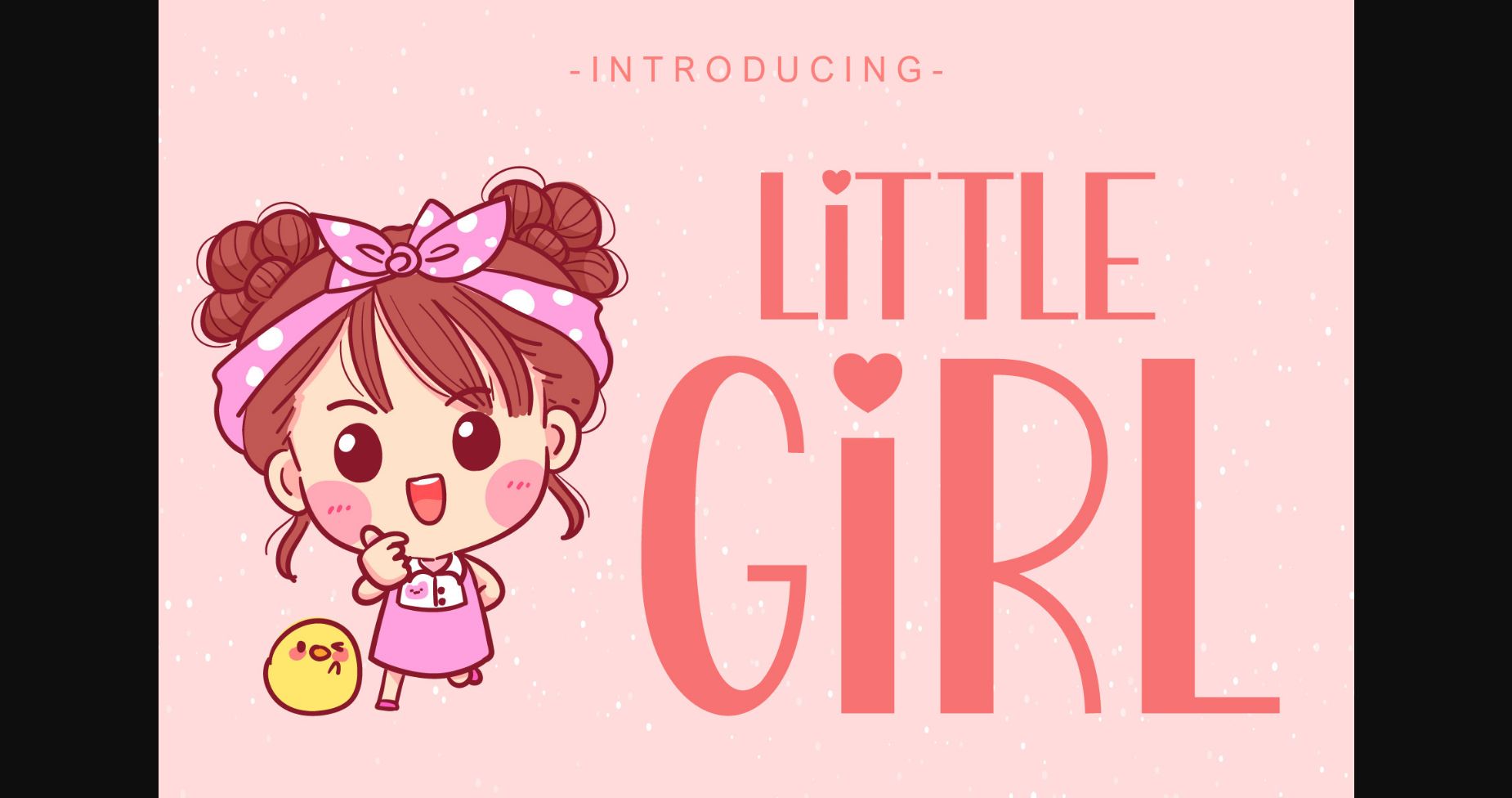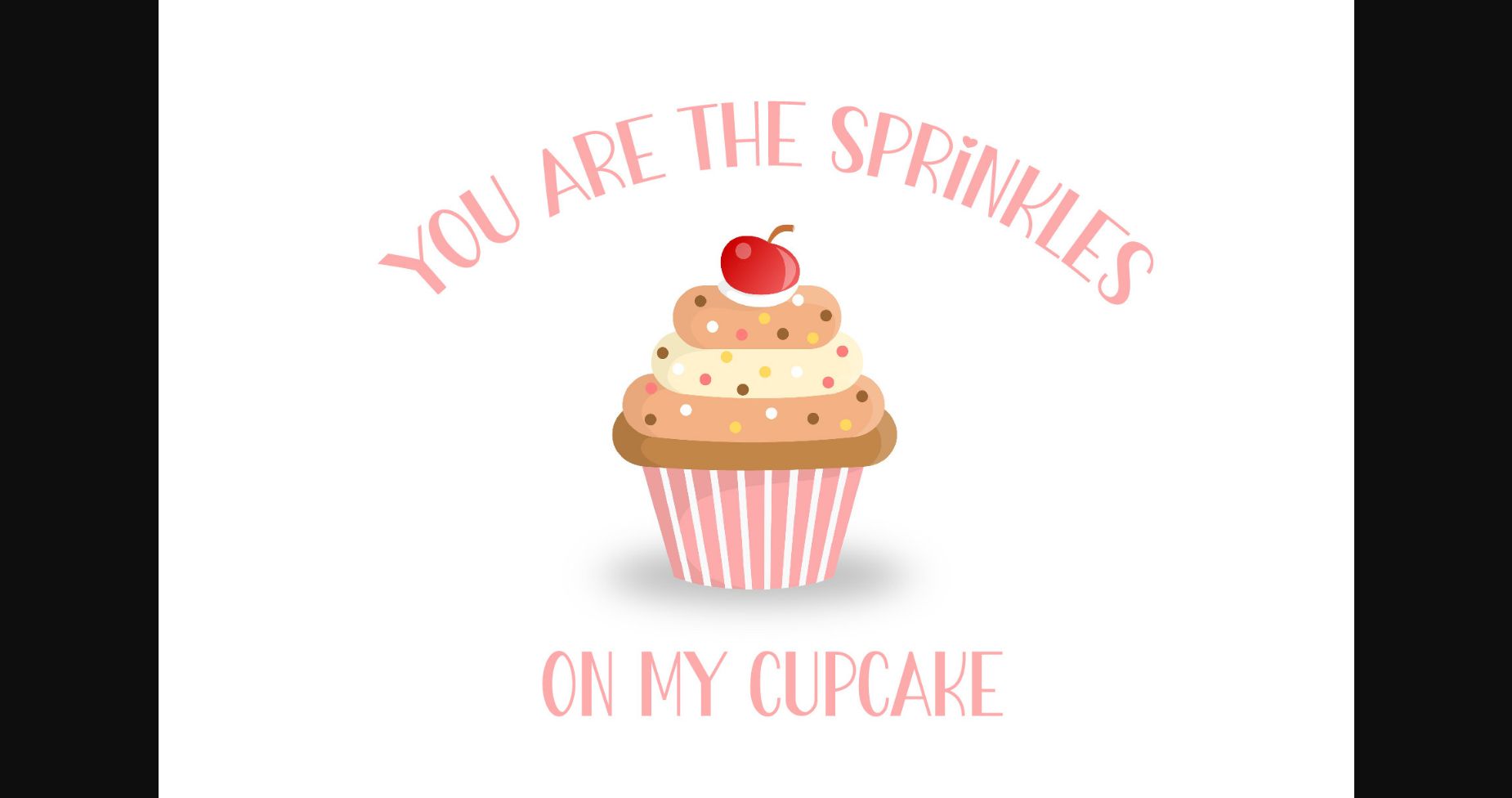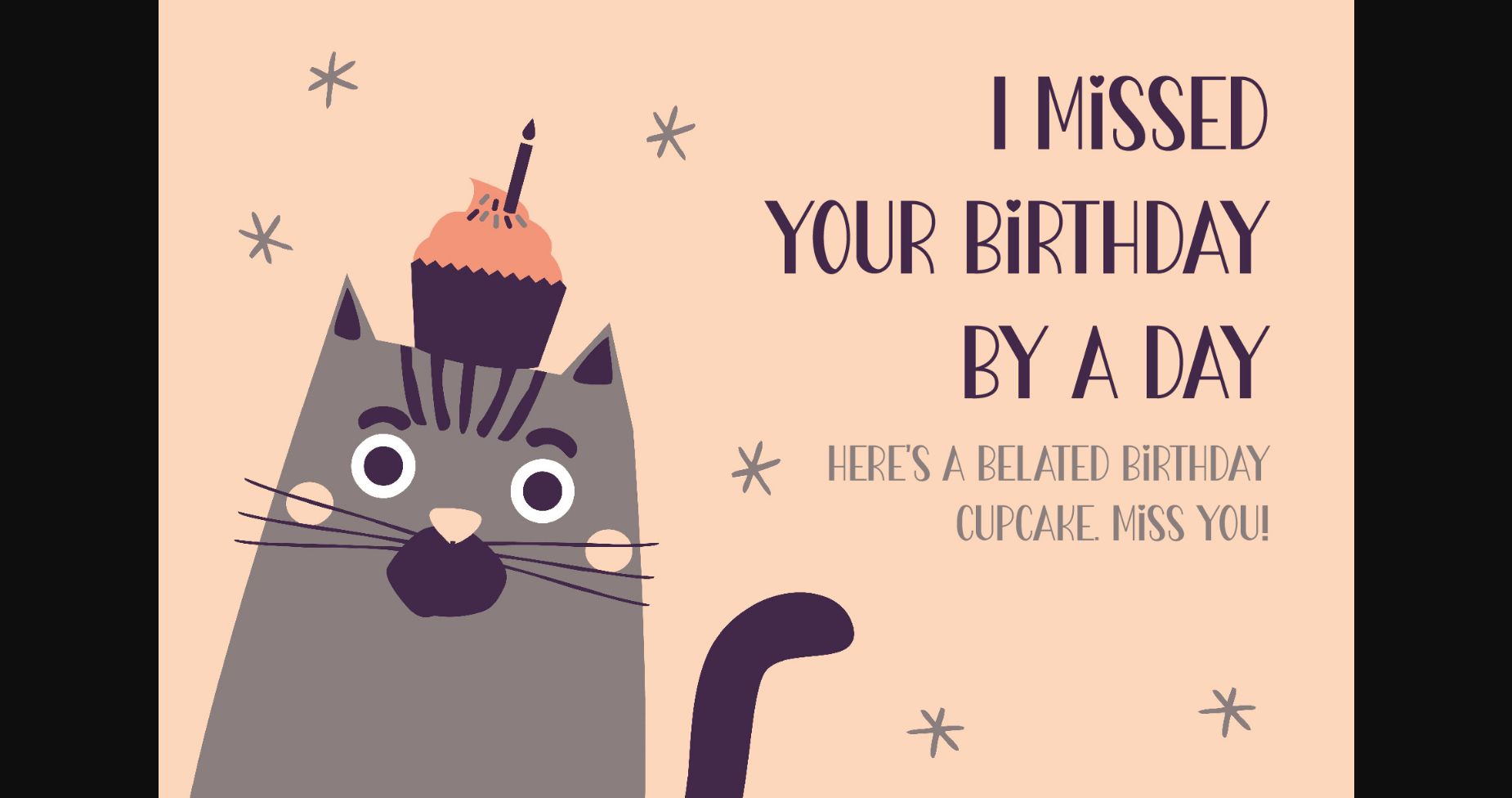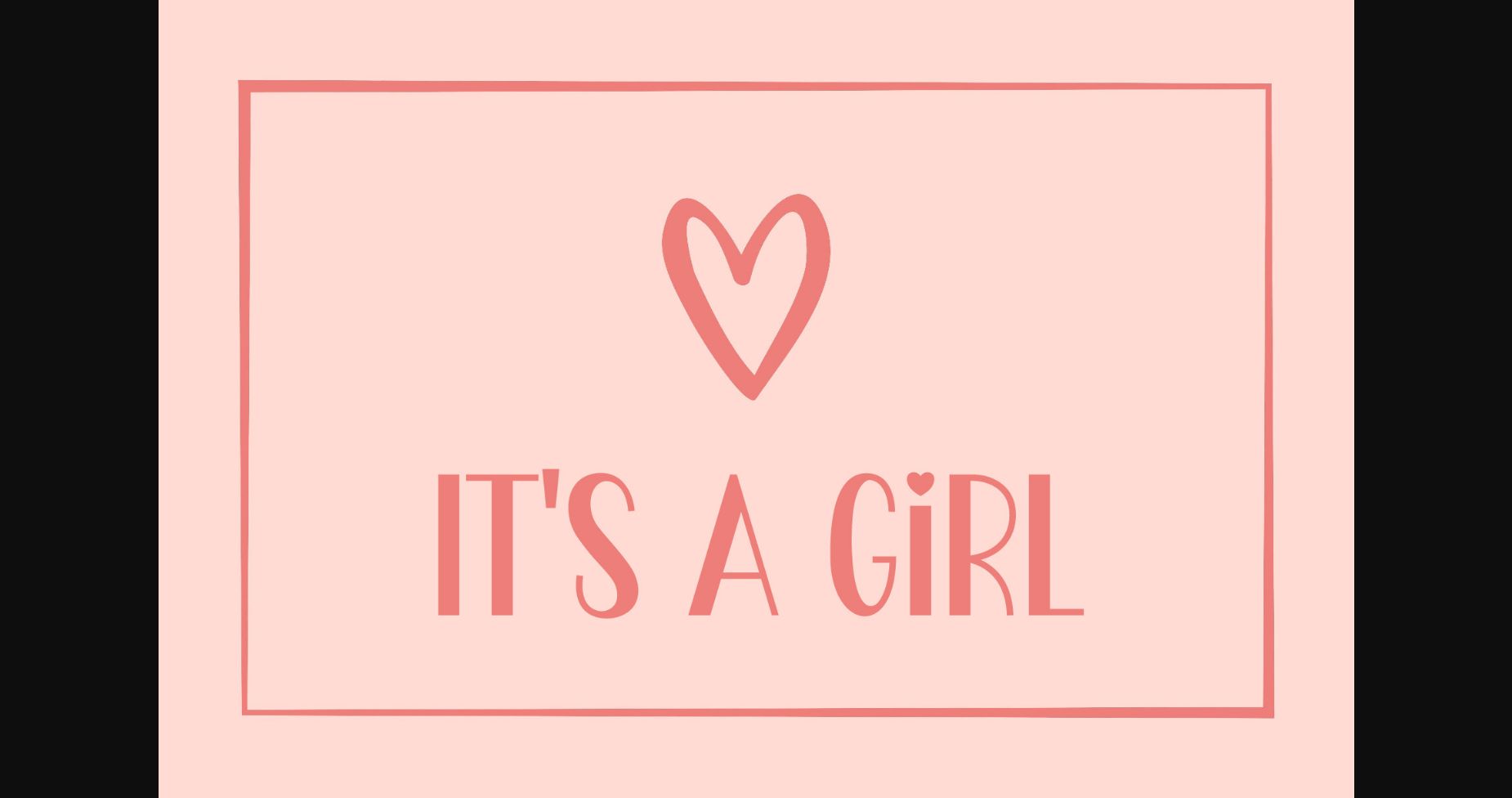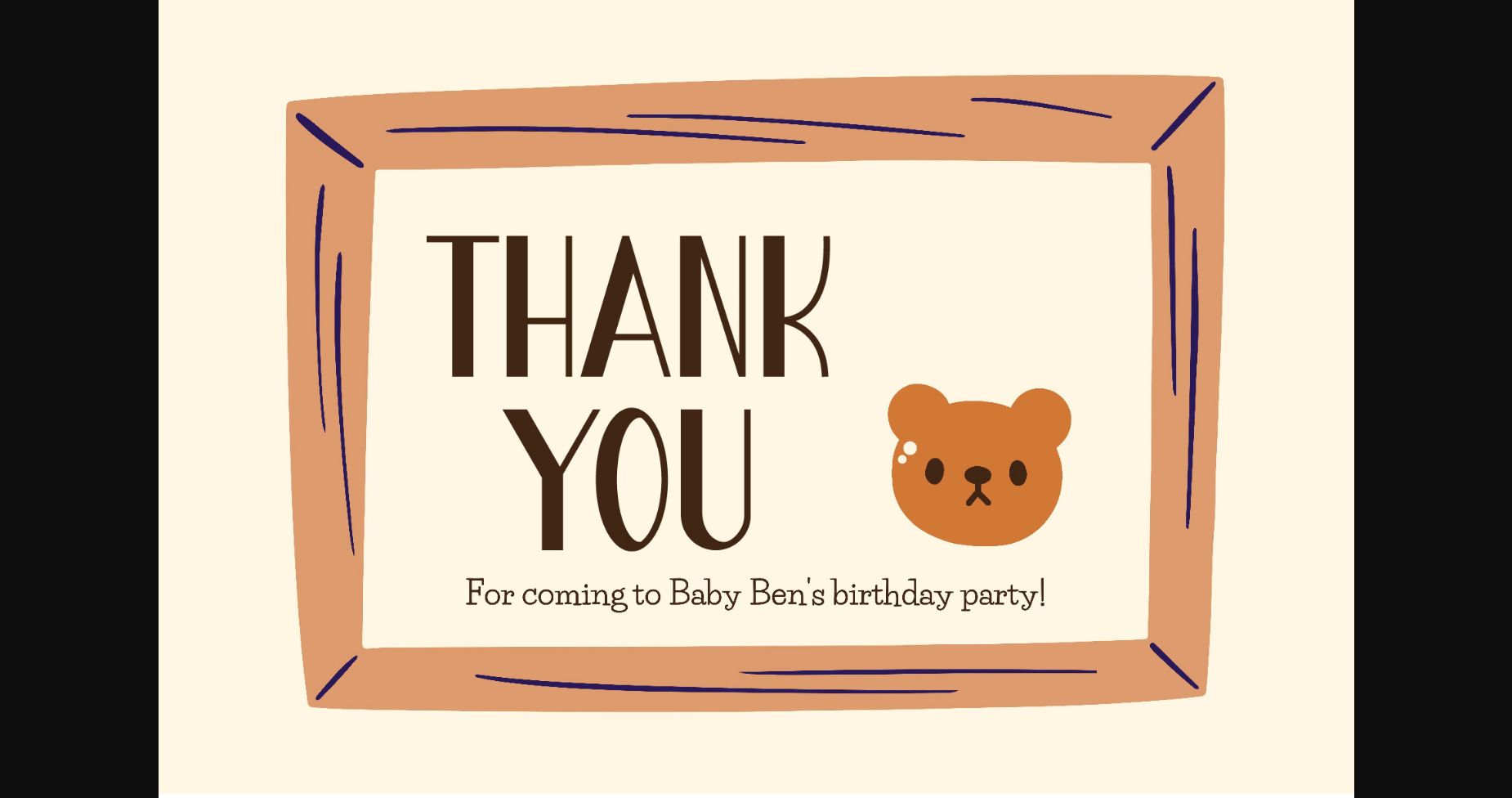
About Little Girl Font
Little Girl is a sans serif font that looks cute and bright. It fits perfectly into any design idea, such as children’s projects, blog posts, logos, branding, ads, invitations, greeting cards, planners, photo albums, decorations, and much more.